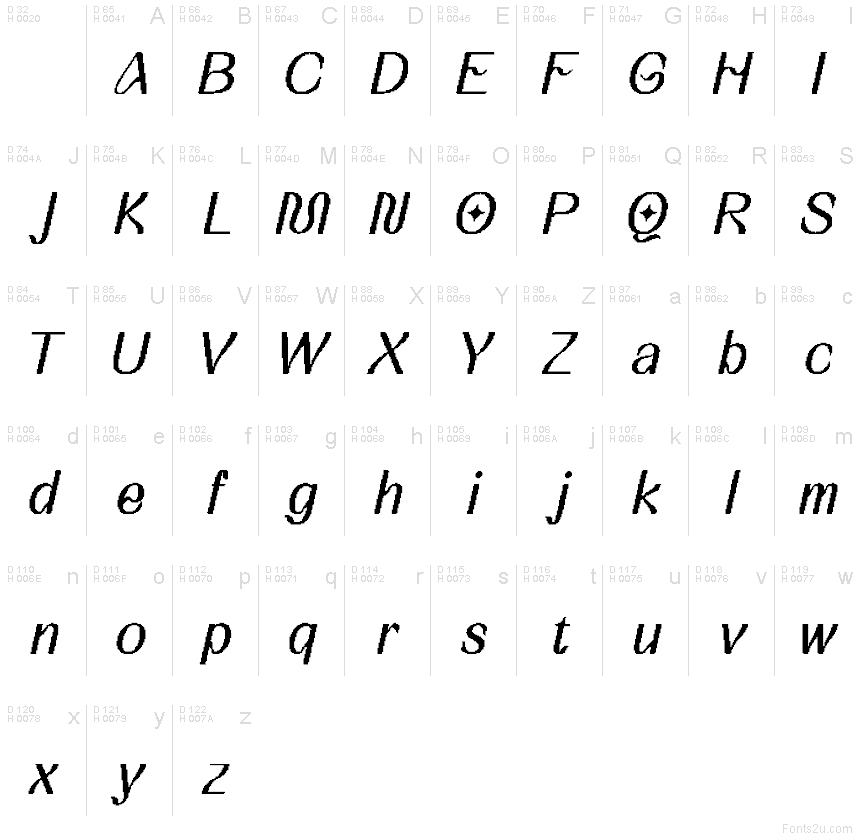
QuencyPixel-Regular Demo
\nQuency Pixel font by Craft Supply Co. is a pixelated vintage display typeface from the “Quency” family. The font in question is all about styluish blocks, pixel art, and minimal retro-inspired designs popular with video games from the 80s and late 90s.